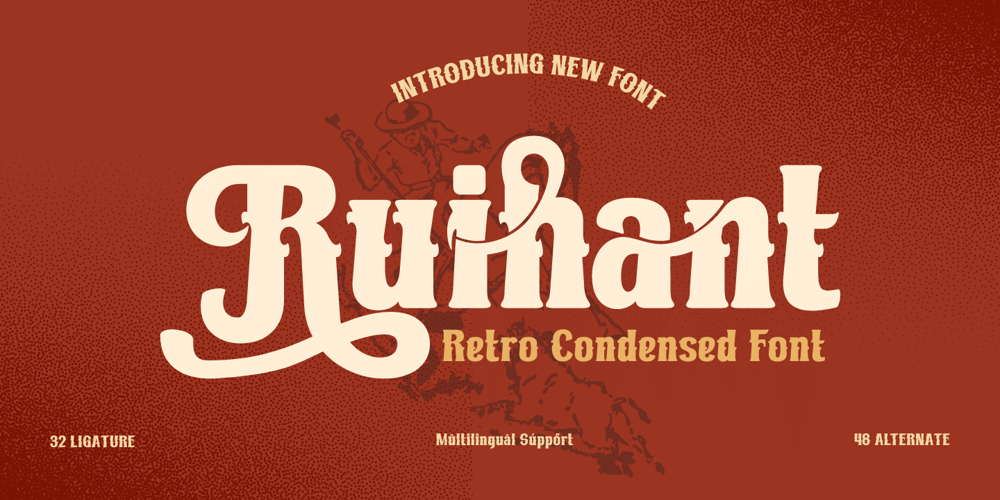
Ruihant Font Family was designed by Rozikan and published by Twinletter. Ruihant contains 1 styles and family package options. For those of you who require a typeface with an attractive classic, retro, and vintage vibe, Ruihant Retro Condensed is the ideal option. This font was created with an original and striking look, making it ideal for all of your creative projects.Premium features like ligature, alternative, and multilingual support are included with the Ruihant, allowing you to customize the font’s design to suit your needs. This font’s straightforward and compact form will enable you to produce designs that are more well-structured and effective.Ruihant is the ideal option to boost your creative endeavors because of its distinctive style and flexibility to alter the font’s appearance. Purchase this font right away and benefit from its advantages to raise the caliber of your designs.What’s Included :- File font- All glyphs Iso Latin 1- Alternate, Ligature- Simple installations- We highly recommend using a program that supports OpenType features and Glyphs panels like many Adobe apps and Corel Draw so that you can see and access all Glyph variations.- PUA Encoded Characters – Fully accessible without additional design software.- Fonts include Multilingual support